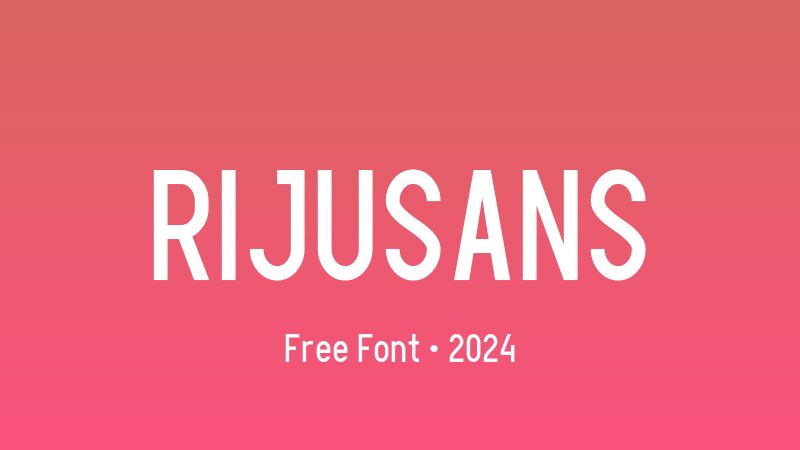
Rijusans
Rijusans font is a modern, condensed sans serif by GGBotNet that takes its typical geometric appearance to the next level. Having neutral characteristics, its letters appear minimalistic and clean in every possible aspect. This makes for a functional typeface where character readability becomes very crucial whatever the application.
Treat Rijuns as your default font that can be used for posters, magazines, advertisements, social media, and websites. Write blog and article titles with it or about us pages, product packages or brand names. The legible font can also do well on wayfinding systems and street signage when neatness and easy direction are required.